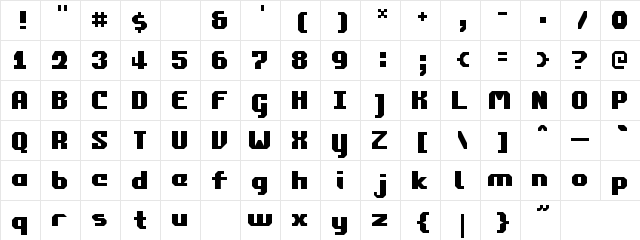
Unesco Regular
Design Context for Unesco Typeface
Unesco takes a measured approach to typography — its balanced proportions and neutral character make it a reliable workhorse for both digital and print work.